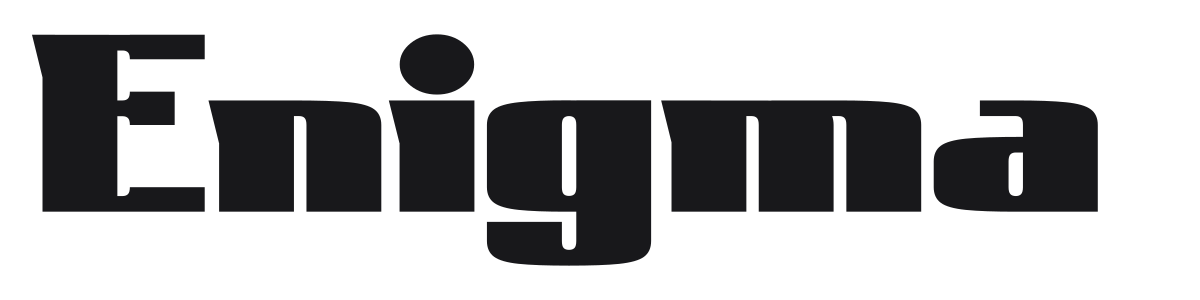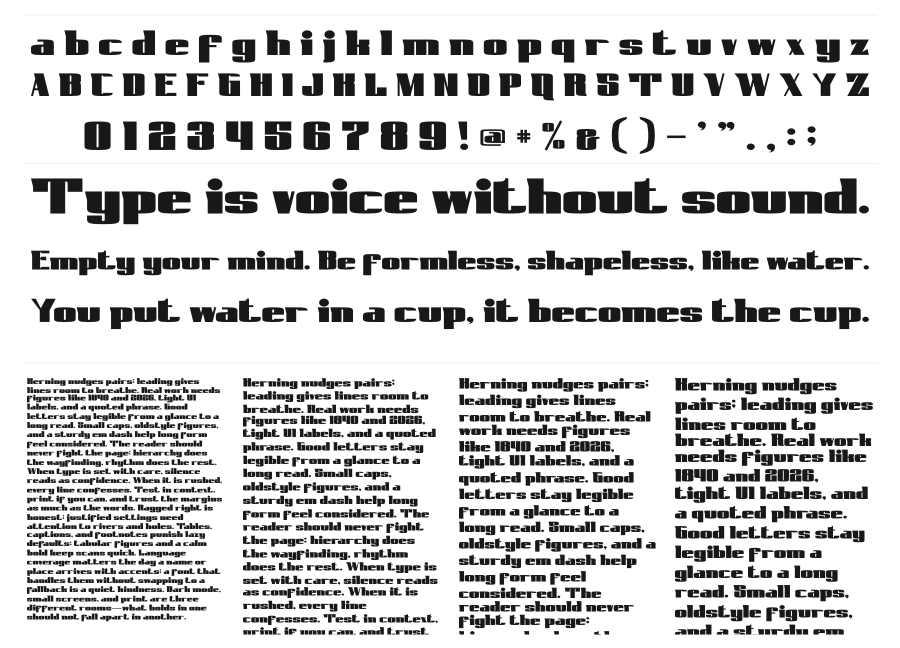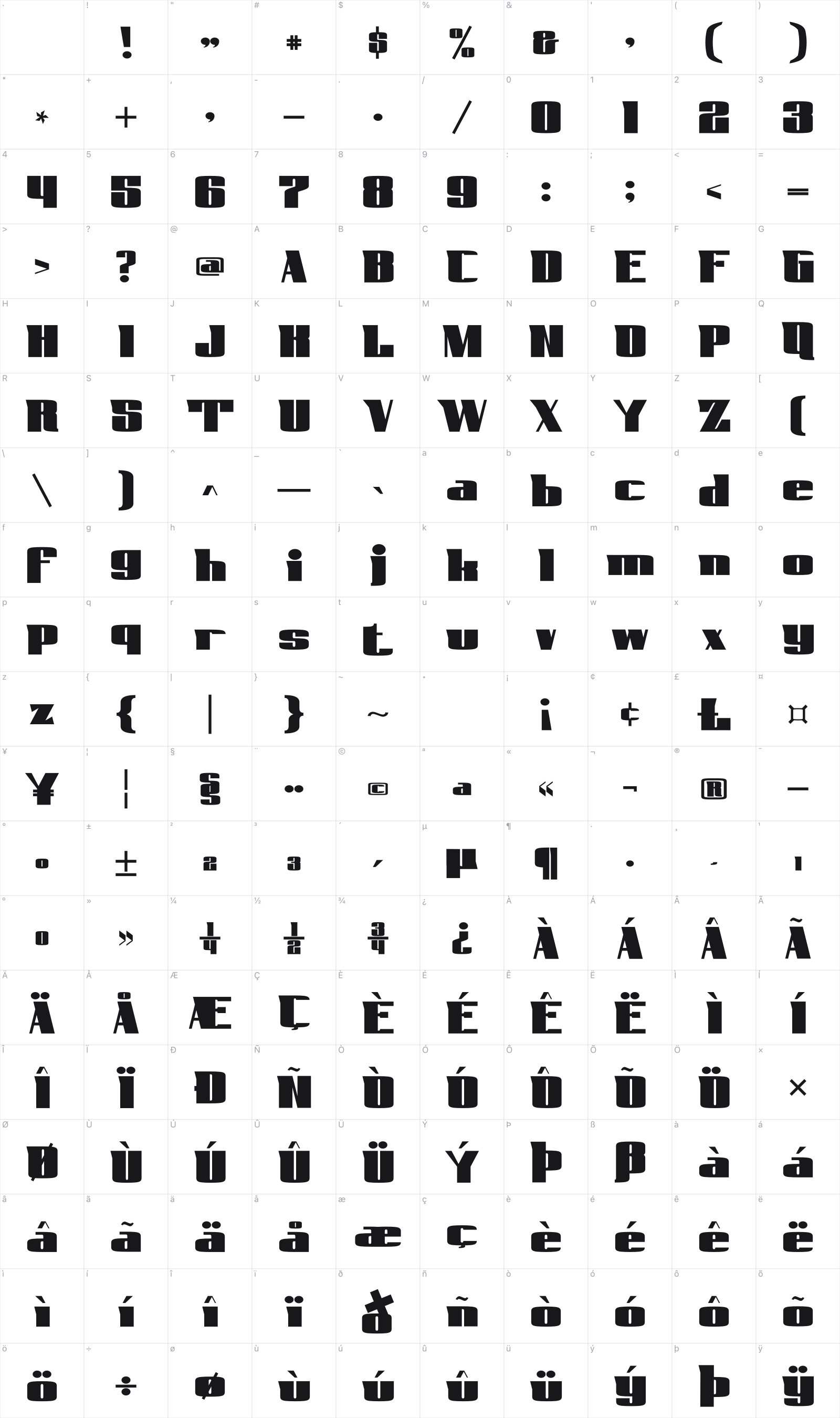
Enigma
Enigma is an ultra-heavy display serif with a dense, space-filling weight and near-closed counters that give it a bold, almost aggressive presence. Its retro character draws from 1970s poster and psychedelic typography traditions, with thick flat serifs and a compressed internal structure. Best used large, where its dark mass and quirky personality make the most impact.